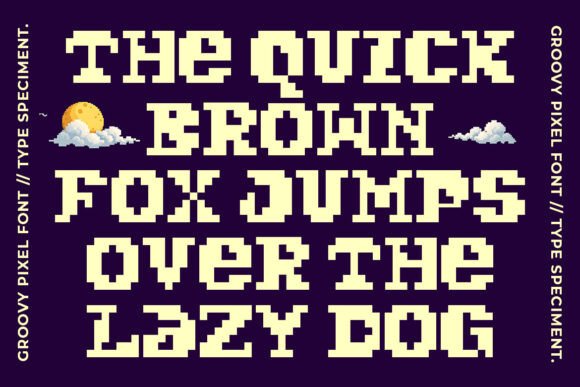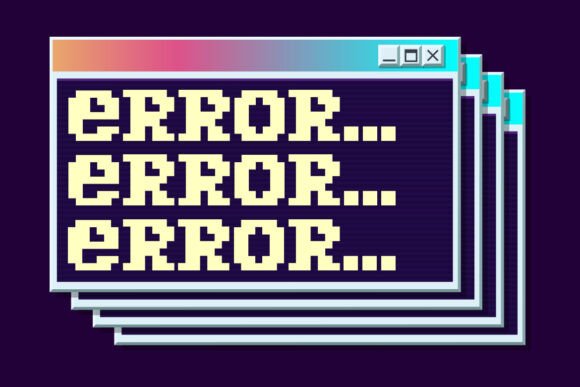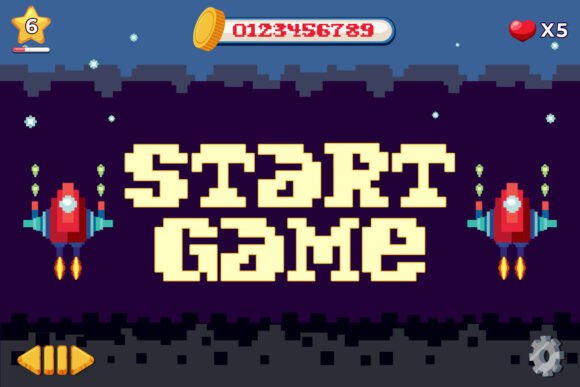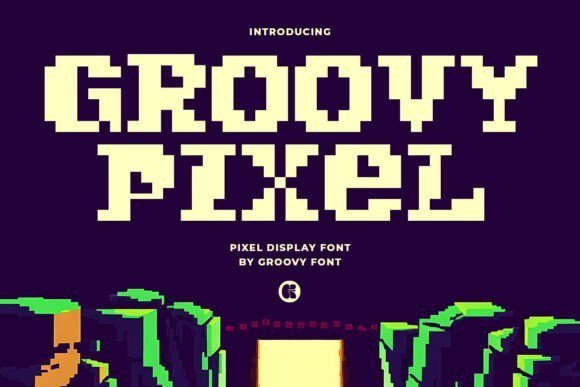
Introduction to Groovy Pixel Font
Groovy Pixel is a charming Pixel Display Font reminiscent of retro video game aesthetics.
The font style features a nostalgic pixelated design that is perfect for creating a retro vibe in game design themes Its playful and vintage look makes it versatile for various applications, adding a fun and unique touch to any project.
Key Features of Groovy Pixel Font